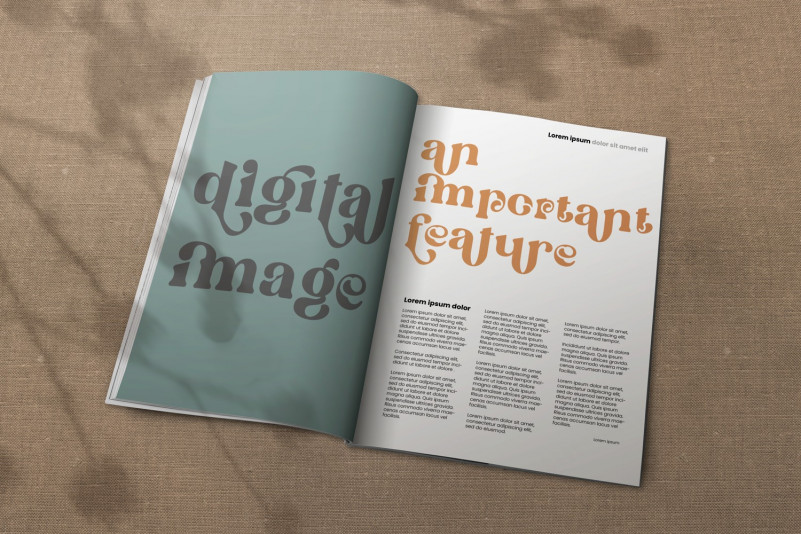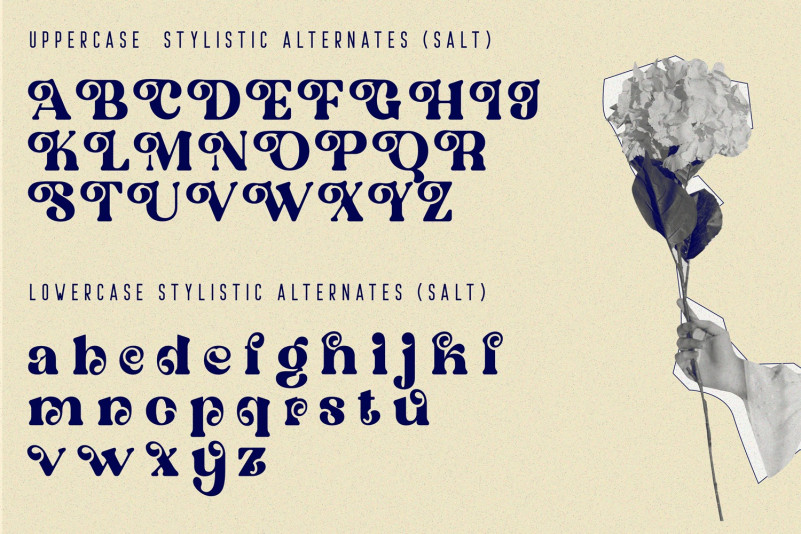
Black Runters Serif Font , created by Storytype, a serif modern and classic typeface that has own unique style & modern look.
Designer Name: | Storytype Studio |